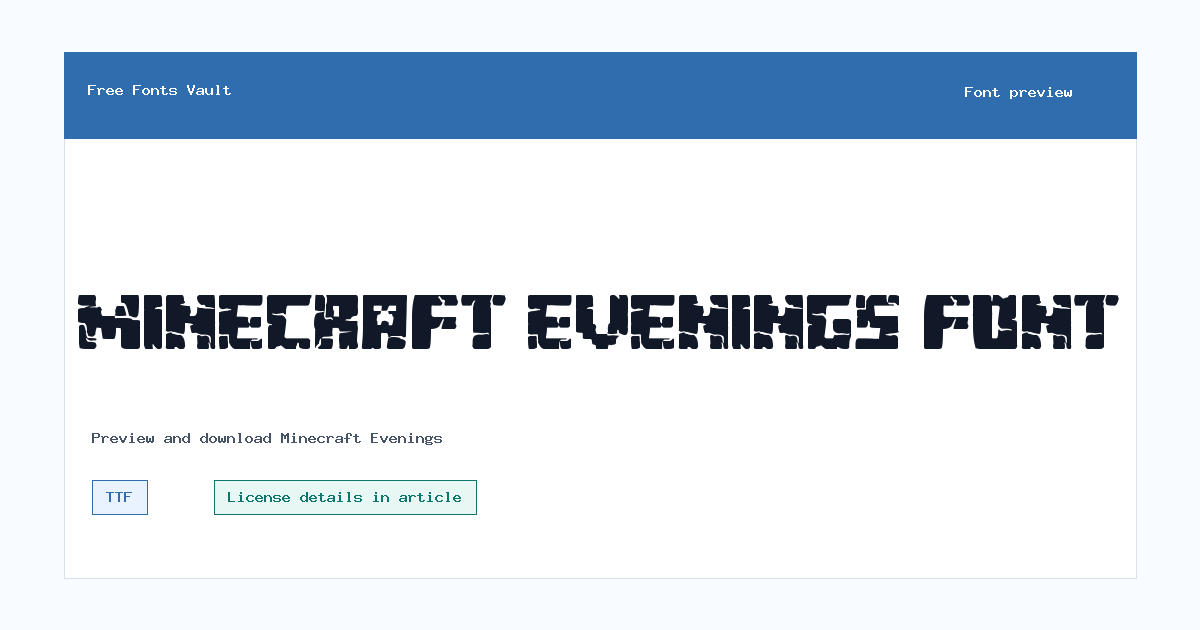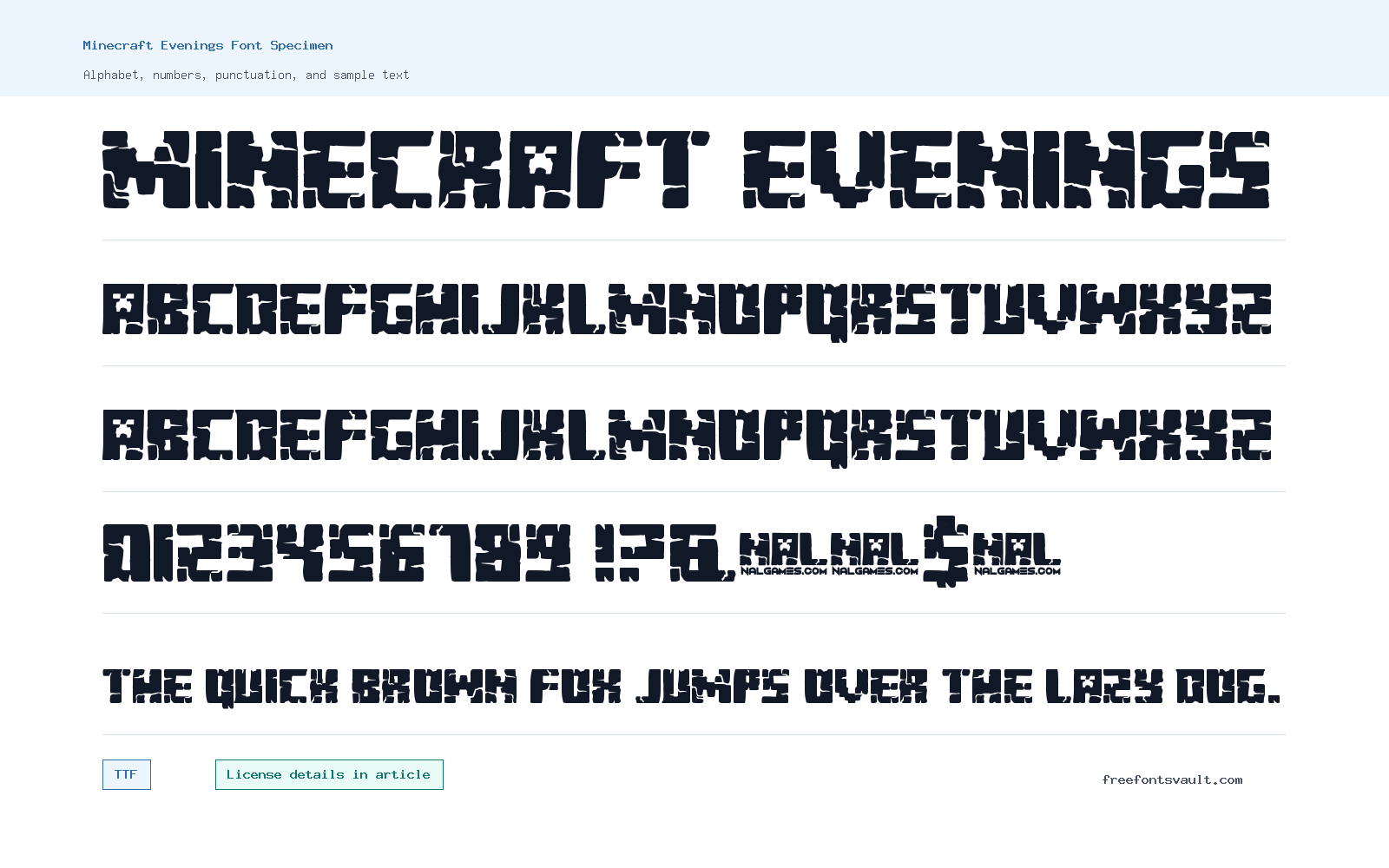
Minecraft Evenings
Minecraft Evenings Font
Minecraft Evenings is a blocky, eroded display font with a game-inspired look. It works best when you need chunky lettering for short titles, preview graphics, posters, thumbnails, or playful digital artwork.
About Minecraft Evenings
Minecraft Evenings uses heavy square forms with rough, worn edges, giving the letters a carved or distressed feel. DaFont places it in the Fancy > Eroded category, and several font sites describe it as inspired by Minecraft. That makes it a strong fit for bold display text rather than long reading copy.
• Blocky display lettering with eroded edges
• Game-inspired style suited to short, bold text
• Best at large sizes where the rough details stay visible
• Gaming thumbnails and stream graphics
• Poster titles and event headers
• Minecraft-inspired fan projects
• Short logo-style words and display text
• Social media images and banners
DaFont and 1001 Free Fonts list Minecraft Evenings by Chequered Ink. FontSpace also lists Chequered Ink and says it was created by Allison James.
Use Minecraft Evenings for short words, headings, and image-based text where the square shape is part of the design. Avoid using it for paragraphs, small UI labels, or dense body copy, because the distressed edges can reduce readability. Pair it with a clean sans serif for descriptions, buttons, captions, and any text that needs to be read quickly.
Who designed Minecraft Evenings?
DaFont and 1001 Free Fonts list the font under Chequered Ink. FontSpace also names Chequered Ink and says it was created by Allison James.
What kind of font is Minecraft Evenings?
It is a decorative display font with blocky, eroded letterforms. It is best for large titles and graphic text, not long paragraphs.